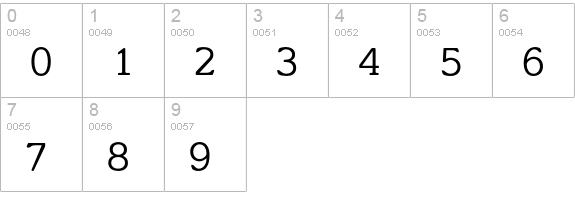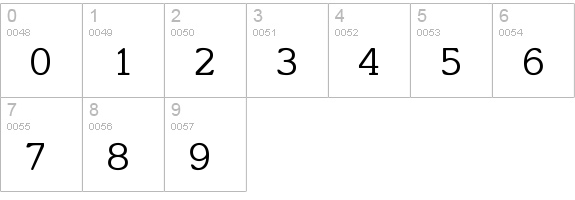
Italia Book Font Details
Italia Book is a comfortable, highly readable variant in the Italia typeface family \xE2\x80\x94 well suited to long-form body text, articles, and editorial content.
Italia Book font is a stunning typeface that effortlessly combines elegance and readability. Its graceful curves and refined letterforms make it the perfect choice for any project that requires a touch of sophistication. This font is meticulously crafted, with each character beautifully designed to create a harmonious and balanced appearance. What sets Italia Book font apart is not only its aesthetic appeal but also its accessibility. It is freely available to download at FontsMarket.com, providing designers and typographers with the opportunity to enhance their creations without any financial constraints. This generous offering allows anyone to add a touch of Italian allure to their designs, whether for personal or commercial use. The versatility of Italia Book font is another reason why it is highly sought after. Its clean lines and legible nature make it a versatile choice for a wide range of applications, from branding and packaging to editorial design and web projects. Whether you are creating a logo, designing a book cover, or crafting a website, Italia Book font will effortlessly elevate your work to a new level of sophistication. With its timeless beauty and free availability, Italia Book font is a true gem in the world of typography. Download it today from FontsMarket.com and unlock the potential to create stunning designs that captivate and inspire.